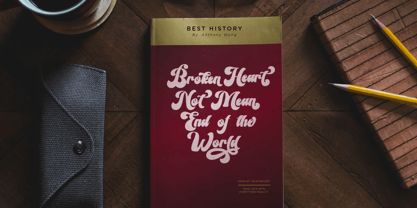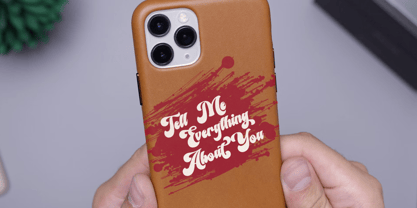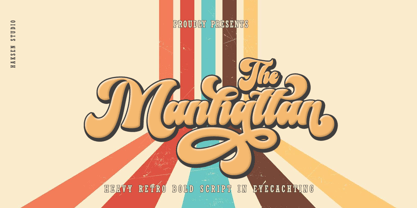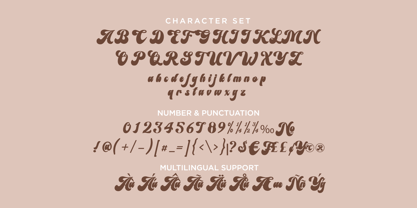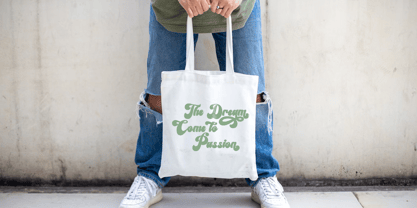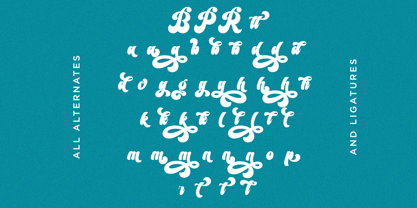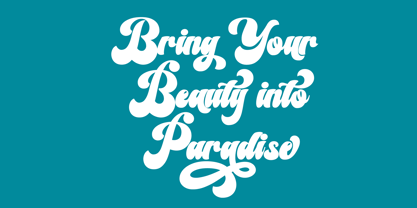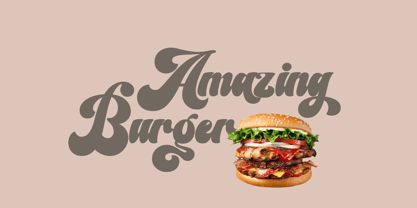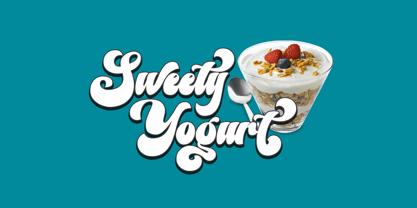
Manhattan
von Haksen
Die Schriftfamilie Manhattan wurde von Sarwo Edhi Prayitno entworfen und von Haksen veröffentlicht. Manhattan enthält 1 Stile.
“Manhattan” The new Bold Script Retro handmade style font. Very suitable for advertisement products, branding materials, business designs brand, quotes, posters and more! This font are perfect for all brand.